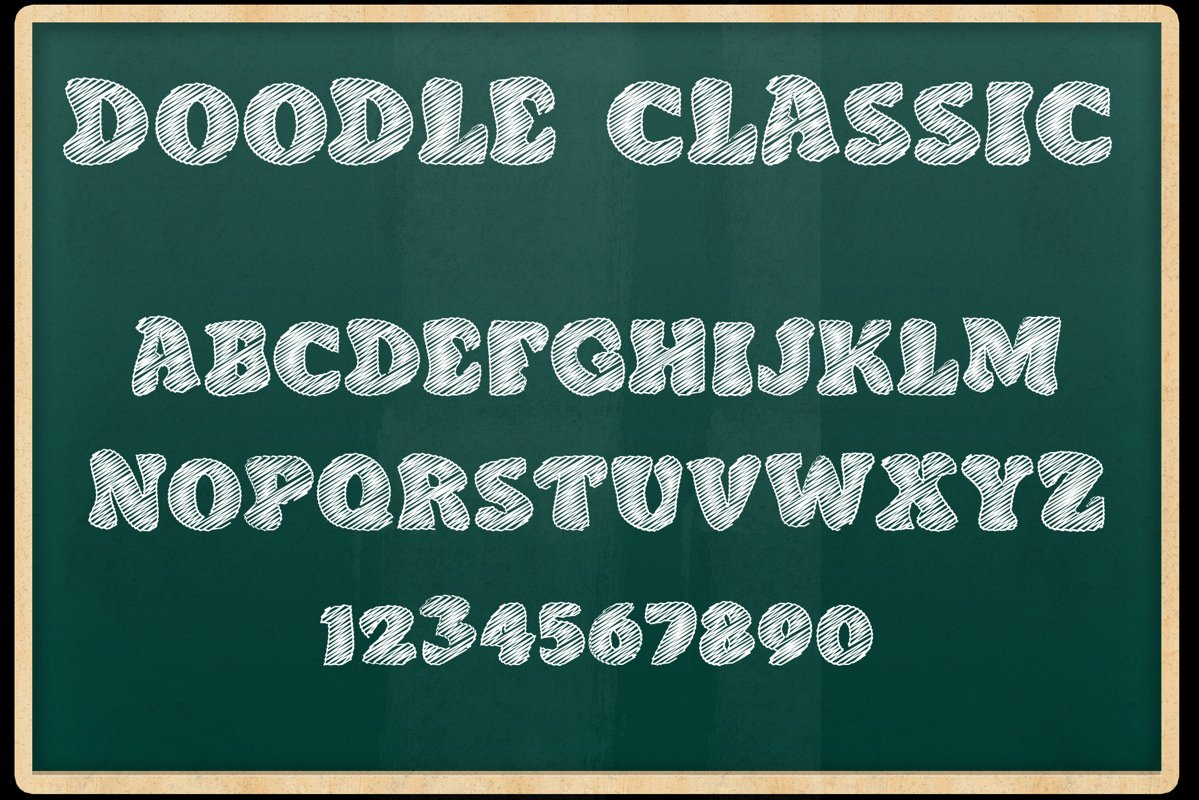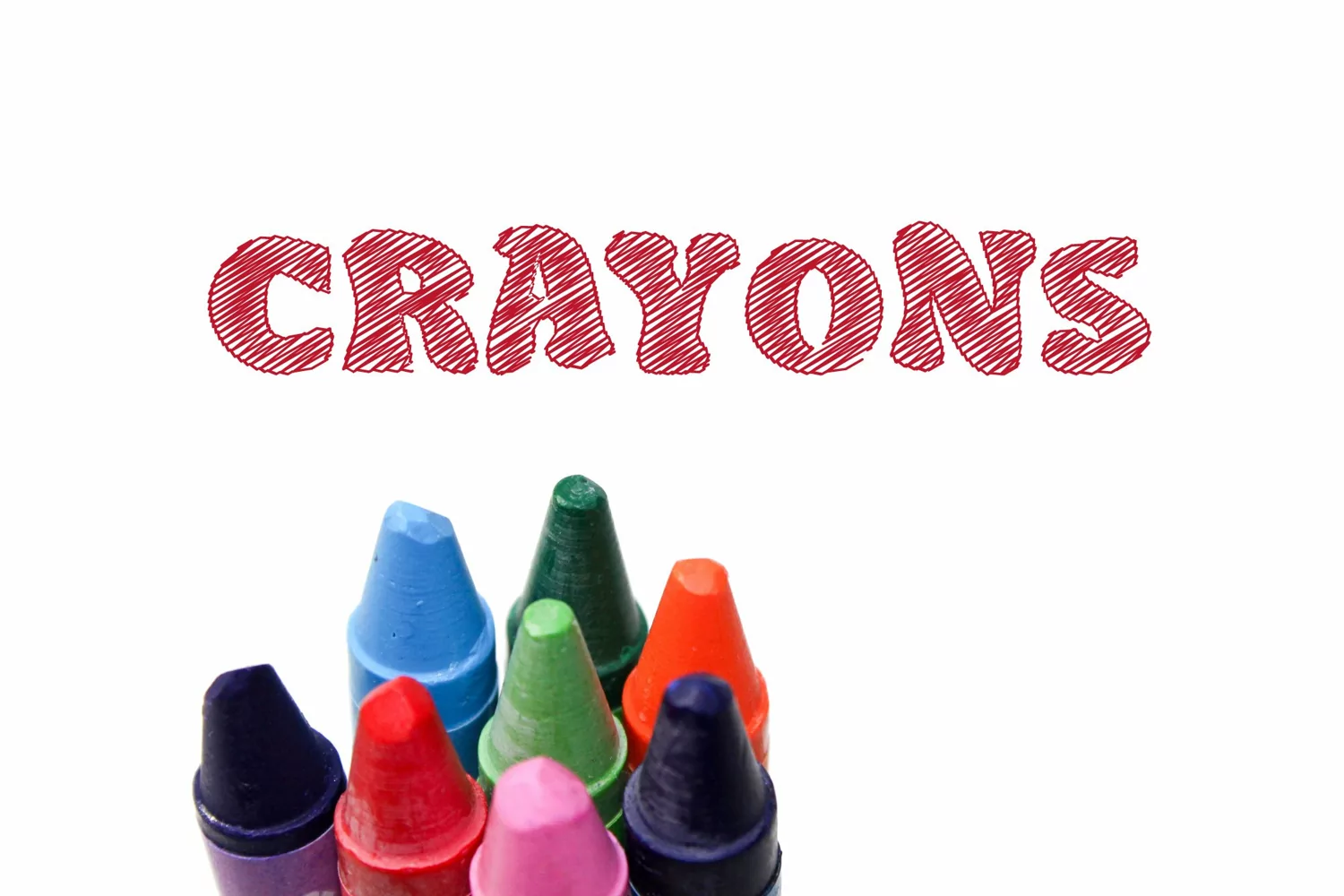
Doodle Classic - Sketch Display Font
Doodle Classic is hand drawn sketch font.
It contains uppercase, numbers, digits and symbols.
Great for posters, logos, packaging, invitations, website titles, prototypes, wireframing T-shirts and more.